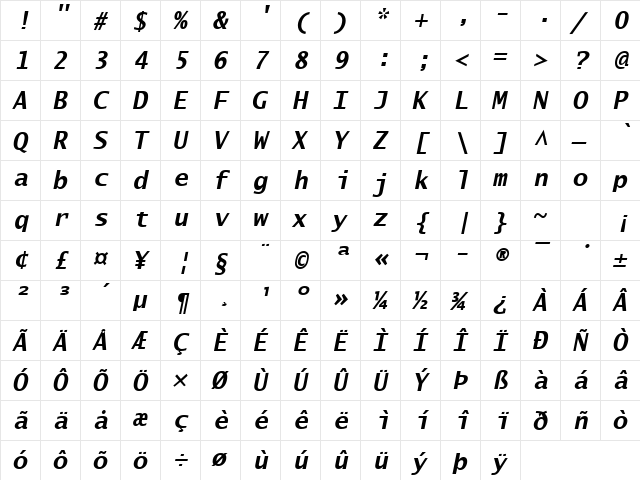
Tangerine 3 Bold Oblique
Design Context for Tangerine 3 Typeface
Tangerine 3 is a composed and adaptable typeface that performs quietly and consistently across a wide range of design contexts. The slanted form adds forward momentum and visual energy. The heavy weight commands attention and anchors typographic hierarchies.